A Clean Sweep
Top global design awards
It has been an extraordinary year for TypeTogether. Our groundbreaking handwriting education project, Primarium, and its flagship font family, Playwrite, have been recognized with a stunning collection of the world’s most prestigious design awards. From London to Vienna, the message is clear: innovative, research-driven type design can have a profound global impact.
The Crown Jewels: A Trio of 2025 Wins
D&AD Yellow Pencil
In a testament to its design excellence, Playwrite won the coveted D&AD Yellow Pencil, the highest award from the Design & Art Direction association. Notably, it was the only type design to receive this honor in 2025. TypeTogether co-founders Veronika Burian and José Scaglione accepted the award in London.
ED-Awards Gold & Best of Show
Just weeks later, the European Design Awards (ED-Awards) awarded Playwrite Gold in the Original Typeface, Text category, along with the Best of Show award in graphic applications, recognizing the team’s outstanding presentation of the font’s capabilities.
TDC Certificate of Typographic Excellence
The Type Directors Club also selected Playwrite for a Certificate of Typographic Excellence, sharing the spotlight with Emma Marichal’s expressive wood type-inspired design, Ploquine, which won in a separate category.
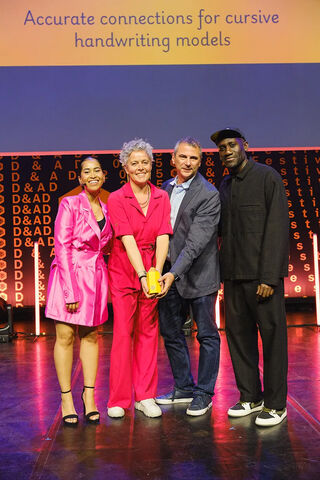
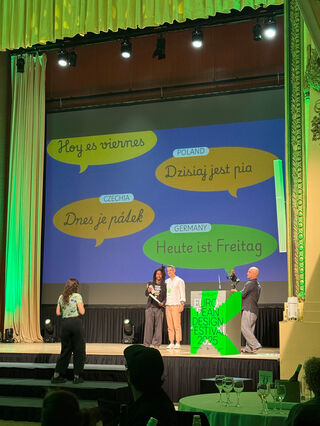
Playwrite font at the TDC exhibition in New York.
A Gold Medal from Vienna: The Joseph Binder Award
Before this summer’s sweep, Playwrite had already achieved top honors. In April 2025, at the prestigious Joseph Binder Award in Vienna, the project received the Gold award in the type design category.
The international jury’s comment captured the essence of the project: Playwrite is a remarkable endeavour that unites diverse languages and cultures through innovative typographic solutions... The design exudes a fresh and funky vibe, capturing attention while remaining rooted in modernity... thoughtfully exploring how typography can be interpreted across different regions, showcasing a keen understanding of cultural nuances.
Senior designer Tom Grace, who accepted the award, noted that the event provided time to reflect on ˝the magnitude of the work we had done — behind the research project, beyond its creation, and past its publication.˝
Primarium’s Early Recognition (2024)
The current success of Playwrite is built on the groundbreaking research of the Primarium project. This ongoing, multi-year study examines how handwriting is taught in over 40 countries, documenting calligraphic models, methodologies, and cultural nuances.
Even before the 2025 awards, Primarium itself was earning international acclaim. In June 2024, the project received:
- Gold at the European Design Awards (ED-Awards) for the excellence and depth of its information.
- Gold (Digital Design for Social Change) and Silver (Website Design) at the Indigo Awards, sharing the latter honour with collaborators Elena Ramirez and Octavio Pardo of Ashler Design.
These early awards validated the project’s core mission: to create positive social impact through the study and design of written language.
A Shared Victory